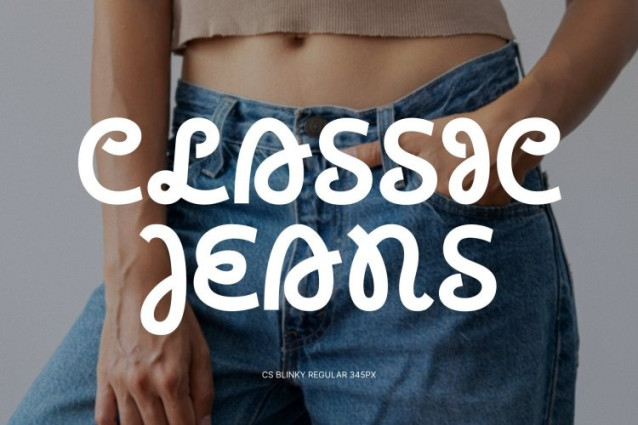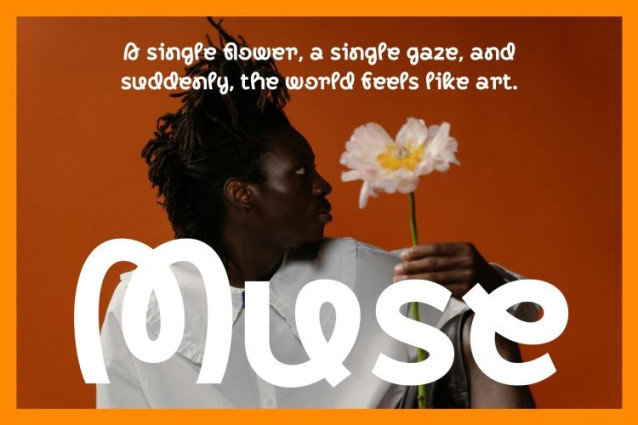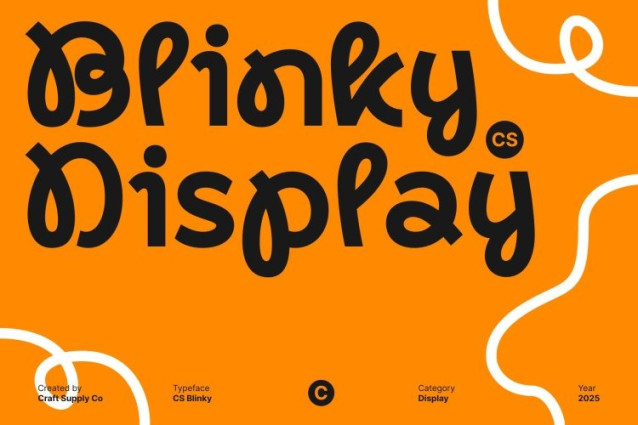
CS Blinky Font
CS Blinky Font – Playful Innovation in Every Curve This is a modern experimental sans serif font designed to bring creativity and originality to your projects. With its distinctive letterforms and quirky touch, this font breaks away from convention, offering a bold typographic identity that feels fresh and imaginative.
Distinctive Shapes for a Creative Edge
Every letter in this font carries a unique rhythm, combining clean geometric structure with playful irregularities. This contrast creates an expressive and modern aesthetic that feels both approachable and artistic. Perfect for designers who want to experiment with form and personality, this font turns typography into a visual statement.
Ideal for Playful and Artistic Branding
This font shines in creative applications such as posters, logos, and editorial layouts. Its eye-catching design adds a spark of originality to brand identities, event graphics, and social media visuals. Whether you’re crafting a fun promotional campaign or a contemporary editorial spread, this font’s vibrant energy will make your message pop.
Versatile, Fresh, and Unapologetically Fun
Beyond its experimental nature, this font remains versatile and highly functional. It balances playfulness with readability, making it a reliable choice for modern creatives. Use this font to express ideas that are bold, joyful, and innovative a font that embodies design freedom and youthful imagination.